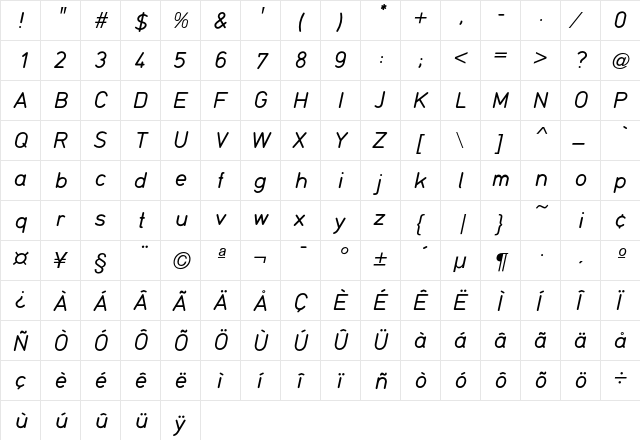
Din17 Regular
Design Context for Din17 Typeface
Din17 offers clean, dependable letterforms without strong stylistic allegiance, making it a practical choice for designers who need flexibility.
Pro Tip: Pair Din17 with a font of contrasting weight or personality to build a more expressive typographic hierarchy.